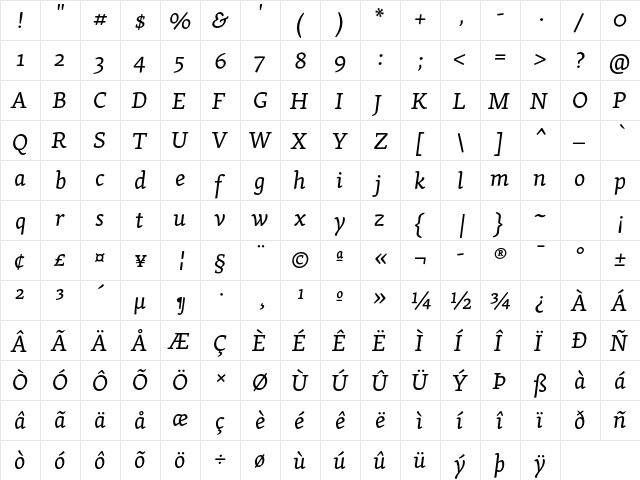
Skolar Italic
Design Context for Skolar Typeface
Skolar takes a measured approach to typography — its balanced proportions and neutral character make it a reliable workhorse for both digital and print work. The dynamic lean of this cut emphasises speed and emphasis in any layout.
Pro Tip: Try Skolar for annotation and caption copy alongside an upright companion — the contrast in angle creates a dynamic but ordered typographic system.